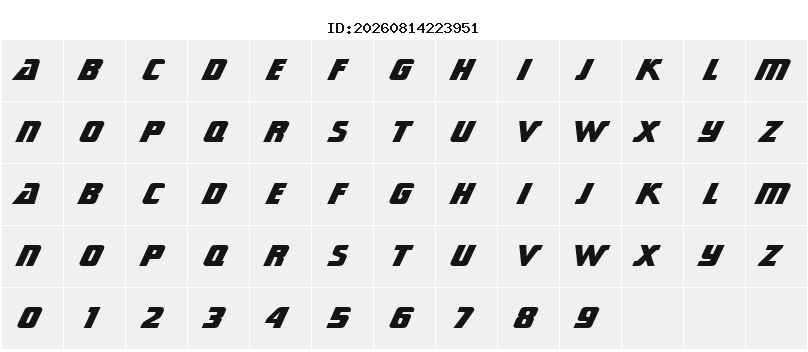
• Font Name: StarTrekGen Hv BT
• Font Style: Heavy
• Font ID: Star Trek Gen Heavy, Square 051
• Full Font Name: Star Trek Gen Heavy BT
About StarTrekGen Hv BT.ttf
StarTrekGen Hv BT.ttf is a modern, elegant sans-serif font designed for ultimate readability and visual harmony. Perfect for branding, headlines, web design, and print materials.